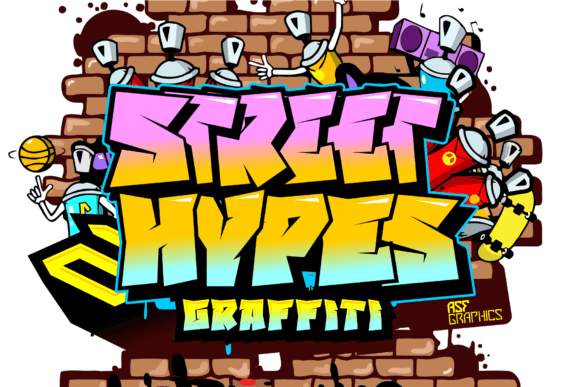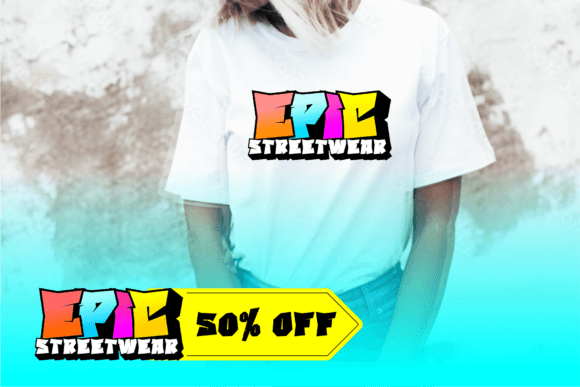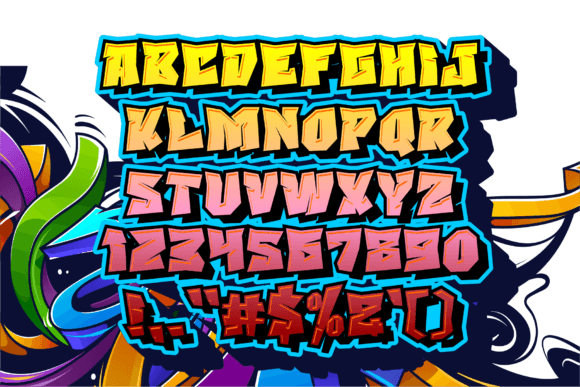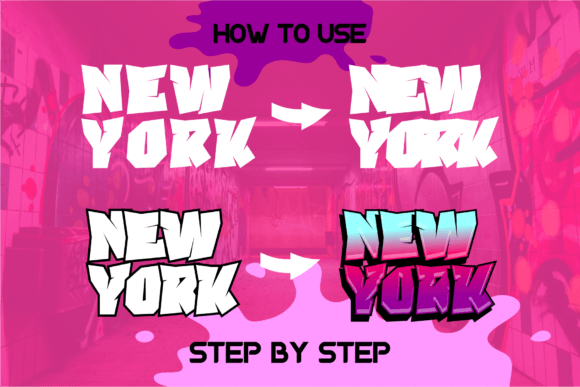
Street Hypes Graffiti Font
About the Street Hypes Graffiti Font
Unleash your creativity with Street Hypes Graffiti Font, a versatile font perfect for a wide range of applications. Street hypes font created and inspired from the street writing of New York, and generated by creative hands of graffiti addictions. It has an incredibly unique design that can be perfect for a range of creative branding and packaging projects.
Street Hypes Graffiti Font Usage Examples
Street Hypes Graffiti Font Example